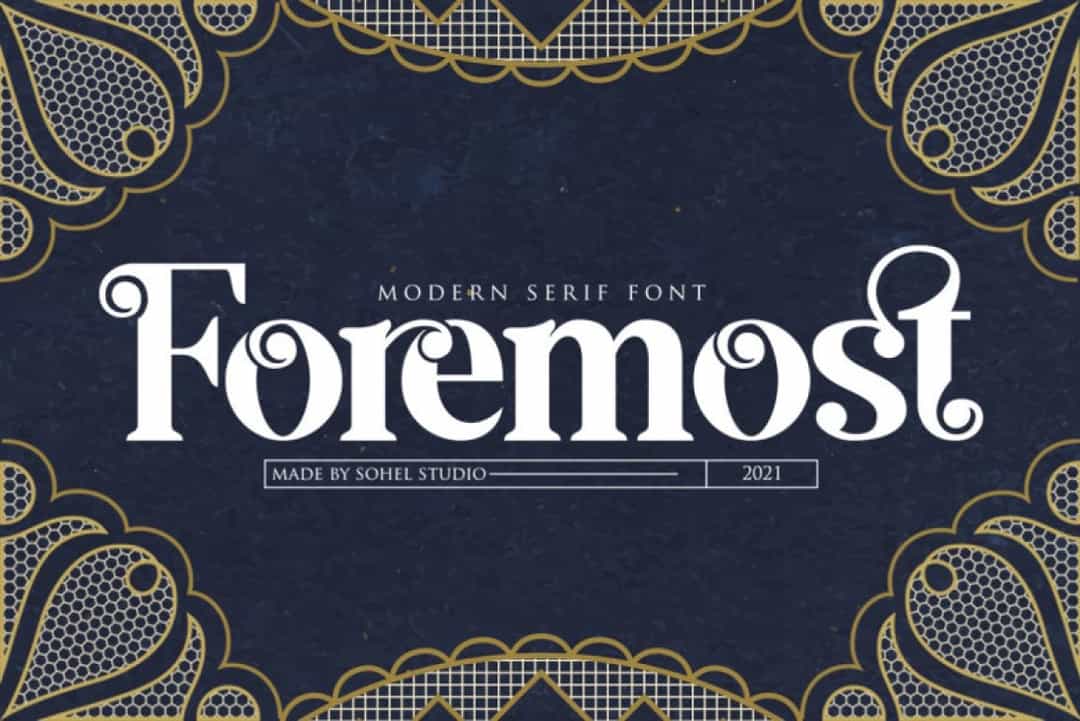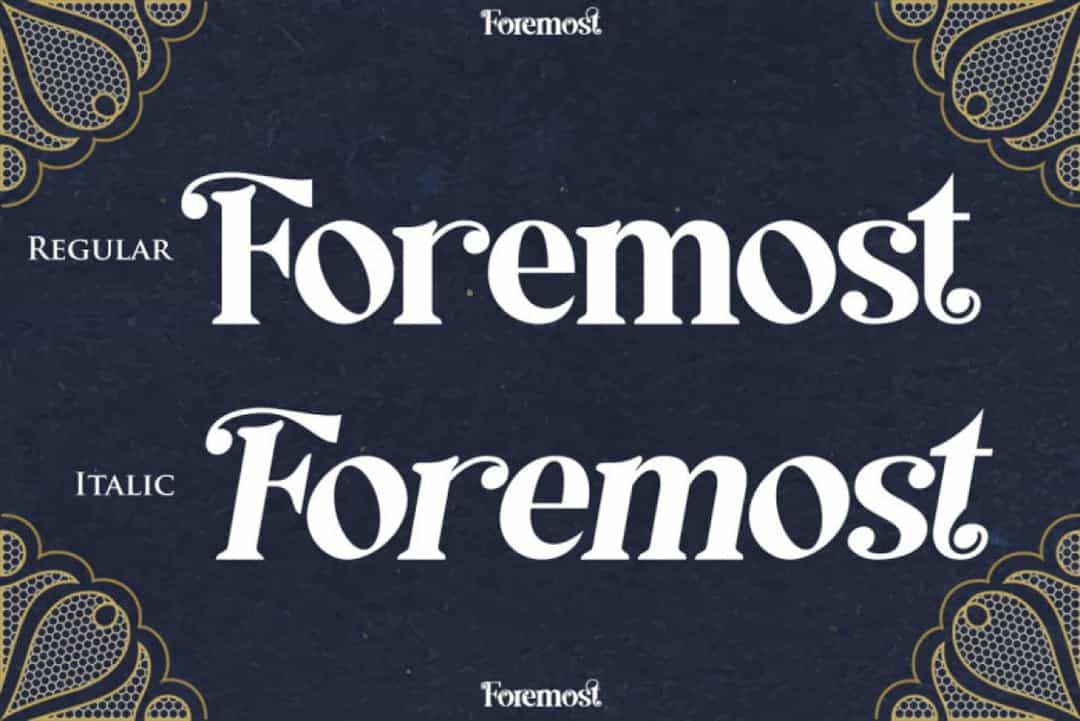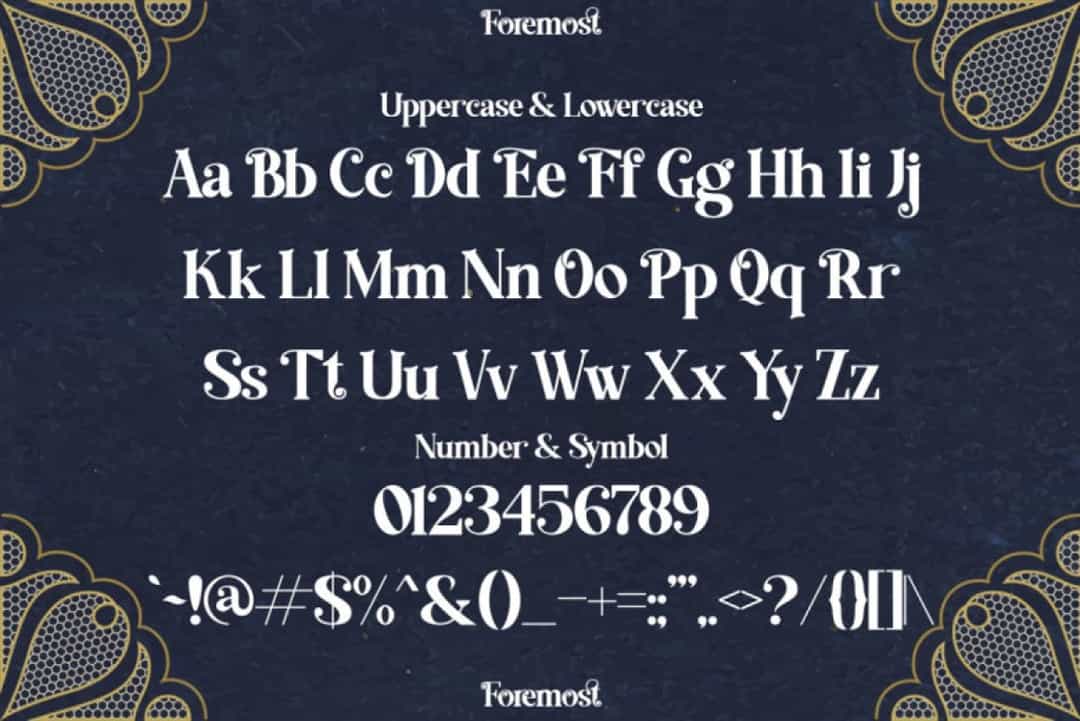
Foremost Font is an exquisite strong serif font featuring uppercase letters. This sophisticated typeface looks beautiful when displayed both large and small – ideal for logos, headings and other text displaying purposes. With its smooth forms and elegant curvatures, Foremost Font adds an air of sophistication to any project.